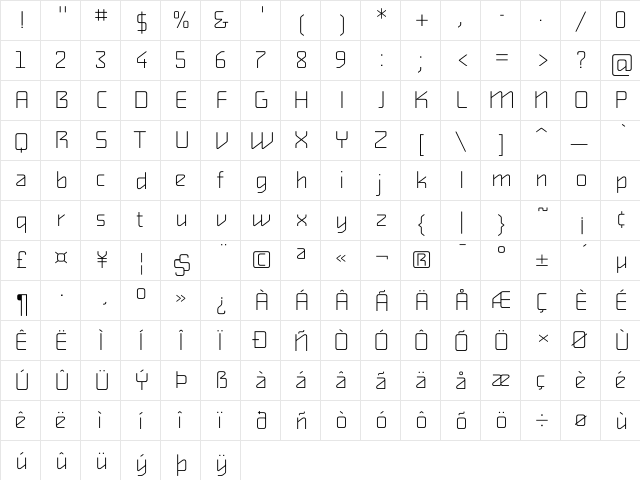
AlphavilleThin Regular
Design Context for AlphavilleThin Typeface
AlphavilleThin is a composed and adaptable typeface that performs quietly and consistently across a wide range of design contexts. Its slender proportions lend an understated elegance to any composition.